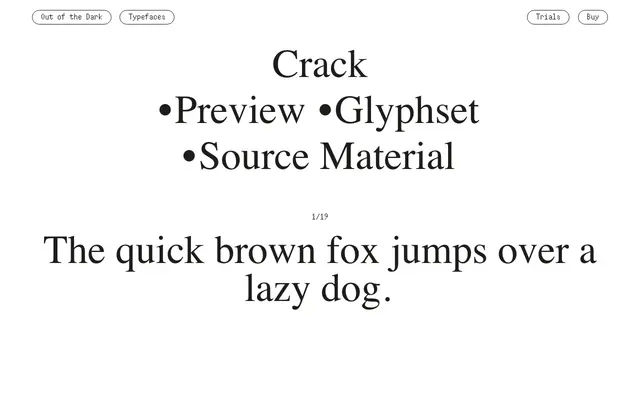
A single-style headline display typeface from Swiss foundry Out of the Dark, built for large-scale typographic impact.
Crack is a one-style display face from Out of the Dark, a Swiss foundry known for experimental and expressive type. Its placement in the foundry's Headline category suggests it is optimised for large settings rather than running text. With only a single style, it is a focused tool intended for editorial headlines or poster work.
Crack is listed under the Headline category by the foundry, with a single style suggesting a purpose-built display typeface rather than a text or body family.